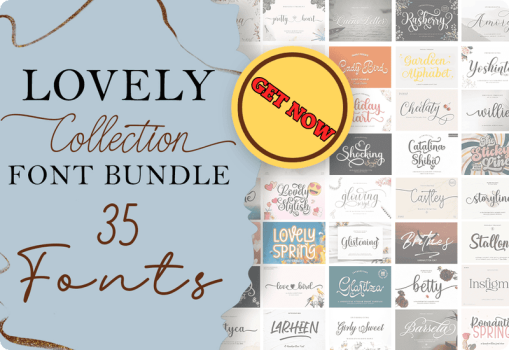
Lovely Collection Font Bundle – A Versatile Set for Creative Projects
Typography is a key element in design, and the Lovely Collection Font Bundle offers a wide range of styles to suit any creative need. This curated set includes 35 premium fonts, each crafted to bring personality, clarity, and charm to your work. Whether you’re designing for print or digital, this bundle provides the flexibility and quality that professionals and hobbyists appreciate.
What’s Inside the Bundle?
This font bundle includes a diverse mix of typefaces, ranging from elegant scripts to bold displays. Each font is designed to serve a specific purpose, making it easy to find the right style for your project.
Elegant Script Fonts
These fonts are perfect for wedding invitations, event signage, and branding. Their flowing lines and graceful curves add sophistication to any design.
- Lady Bird Script
- Barsela Calligraphy
- Love Bird Script
- Glowing Script
- Willia Script
- Magnolias Script
- Britnes Script
- Holiday Start Script
- Astyca Script
- Quens Letter Script
- Audryna Script
- Pretty Heart Script
- Story Line Script
- Lovely Spring Script
- Stallone Script
- Girly Sweet Script
- Glistening Script
- Yoshinta Script
- Rasberry Script
- Chedaty Script
- Amory Script
- Betty Script
- Agatha Script
- My Dream Script
- Larheen Script
- Molina Holiday Script
- Castley Script
- Catalina Shiba Script
Handwritten Fonts
Fonts that mimic natural handwriting, ideal for journals, greeting cards, and personalized gifts. These fonts add warmth and authenticity to your designs.
- Romantic Spring
- The Sticky Line
- Garden Alphabet
- Lovely Stylish
Serif Fonts
Clean and professional, serif fonts are suitable for body text, logos, and corporate branding. They offer readability and versatility across formats.
- Instigma Serif
Decorative Fonts
Playful and artistic, decorative fonts are great for themed projects, seasonal designs, and children’s materials. They add character and fun to your work.
- Shocking Skript
- Glaritza Skript
High-Quality Design
Each font is professionally designed with attention to detail. The characters are well-balanced, the kerning is optimized, and the styles are consistent across weights.
Wide Range of Applications
Perfect for Designers, Crafters, and Small Businesses
Whether you’re a graphic designer working on client branding, a crafter creating personalized gifts, or a small business owner designing promotional materials, the Lovely Collection Font Bundle provides the tools to make your work more impactful.
The variety of styles ensures that you’ll always have the right font for the job. From playful and quirky to refined and elegant, this bundle supports a wide range of creative expressions.
Examples of Use Cases
- Crafting: Use decorative and handwritten fonts for vinyl decals, scrapbooking, and handmade cards.
- Branding: Choose clean serif or script fonts for logos and business materials.
- Invitations: Apply elegant script fonts to wedding, birthday, and event invitations.
- Social Media: Create engaging posts and stories with bold display fonts.
- Packaging: Add personality to product labels and packaging with unique typefaces.
Designed for Flexibility and Style
Each font in the Lovely Collection is designed to be both functional and visually appealing. The bundle includes fonts with multilingual support, alternate characters, and stylistic sets, giving you more control over your typography.
Whether you’re working on a minimalist design or a vibrant, expressive layout, these fonts adapt to your needs and help you communicate your message clearly.